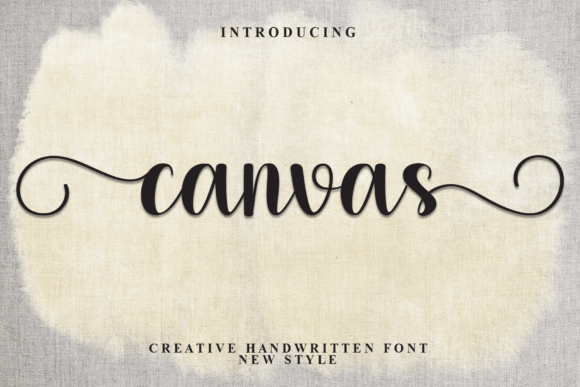
Introducing Canvas: The Elegant Handwritten Script Font
In the world of typography, few fonts manage to convey elegance and charm as effortlessly as Canvas. This beautiful handwritten script font is designed to add a touch of sophistication and refinement to any design project. With its fluid, graceful strokes, Canvas is perfect for a variety of creative applications, from branding and invitations to stationery and more.
The Characteristics of Canvas Font
Canvas is distinguished by its smooth curves and natural flow, which create a timeless and refined look. The font’s fluid strokes are carefully crafted to give it a sense of movement and fluidity, making it perfect for designs that require a personal touch. The elegant and charming appearance of Canvas makes it an excellent choice for designers and crafters looking to add a touch of sophistication to their work.
Perfect for Branding and Marketing Materials
When it comes to branding, the right font can make all the difference. Canvas is an excellent choice for logos, business cards, and other marketing materials, as it conveys a sense of elegance and refinement. The font’s unique and stylish appearance helps to create a lasting impression, making it perfect for businesses that want to stand out from the competition.
Elevate Your Invitations and Stationery
Canvas is also an excellent choice for invitations, stationery, and other paper goods. The font’s elegant and charming appearance makes it perfect for wedding invitations, birthday cards, and other special occasions. Whether you’re a designer or a crafter, Canvas provides a beautiful and sophisticated way to add a personal touch to your work.
Key Features of Canvas Font
• Fluid and graceful strokes: Canvas features smooth, flowing strokes that give it a sense of movement and elegance.
• Elegant and charming appearance: The font’s unique and stylish appearance makes it perfect for designs that require a personal touch.
• Timeless and refined look: Canvas’s smooth curves and natural flow create a timeless and refined look that’s perfect for a variety of design applications.
• Perfect for branding and marketing materials: Canvas is an excellent choice for logos, business cards, and other marketing materials.
• Ideal for invitations and stationery: The font’s elegant and charming appearance makes it perfect for wedding invitations, birthday cards, and other special occasions.
Tips for Using Canvas Font
To get the most out of Canvas, here are a few tips to keep in mind:
• Use it sparingly: Canvas is a elegant and charming font, but it can be overwhelming if used excessively. Use it sparingly to add a touch of sophistication to your design.
• Pair it with complementary fonts: Canvas pairs well with a variety of fonts, including sans-serif and serif fonts. Experiment with different pairings to find the one that works best for your design.
• Experiment with different sizes and colors: Canvas looks great in a variety of sizes and colors. Experiment with different options to find the one that works best for your design.
Canvas is a beautiful and elegant handwritten script font that’s perfect for designers and crafters looking to add a touch of sophistication to their work. With its fluid, graceful strokes and timeless, refined look, Canvas is an excellent choice for a variety of design applications, from branding and marketing materials to invitations and stationery. Whether you’re a seasoned designer or a crafty DIY enthusiast, Canvas is a font that’s sure to inspire your creativity.